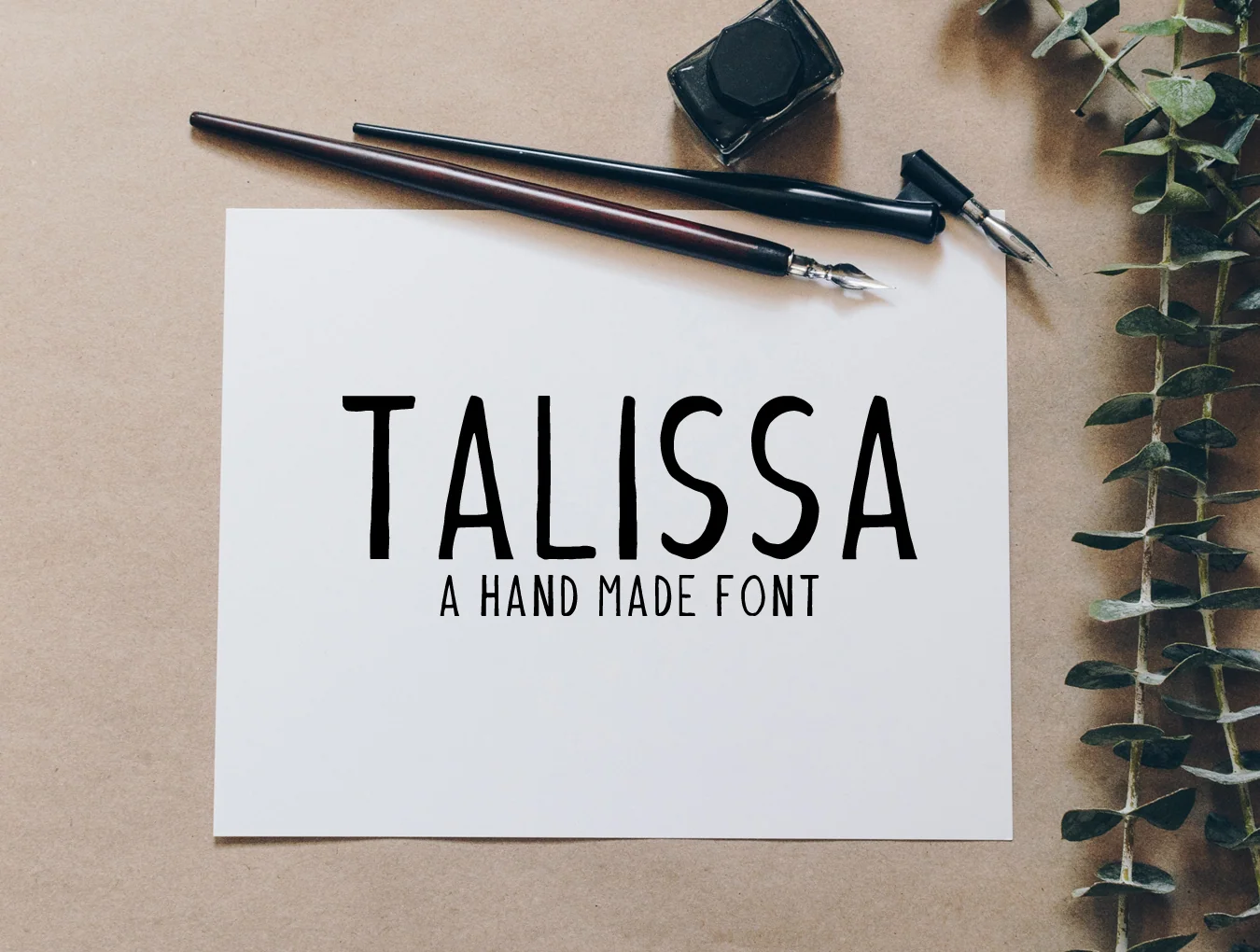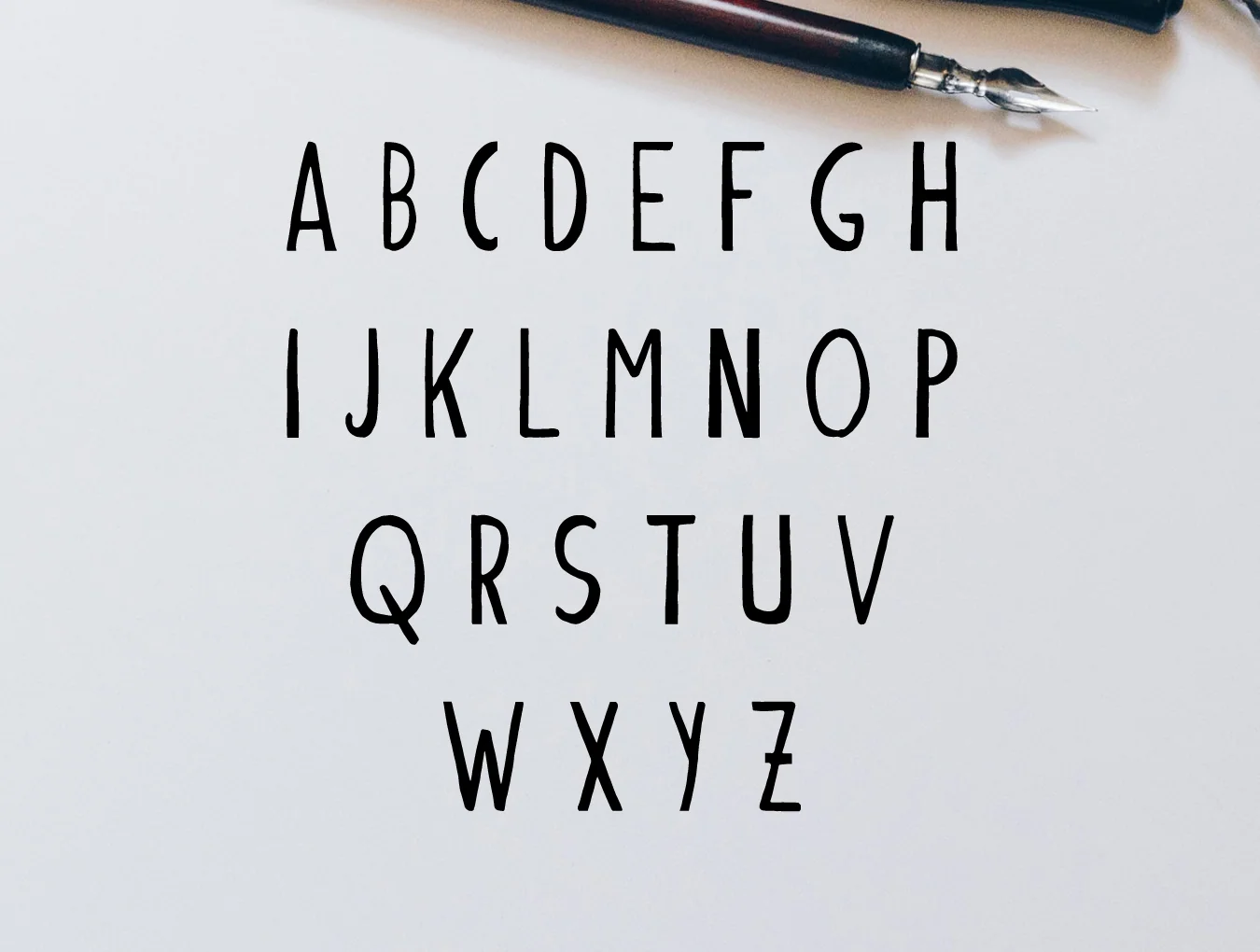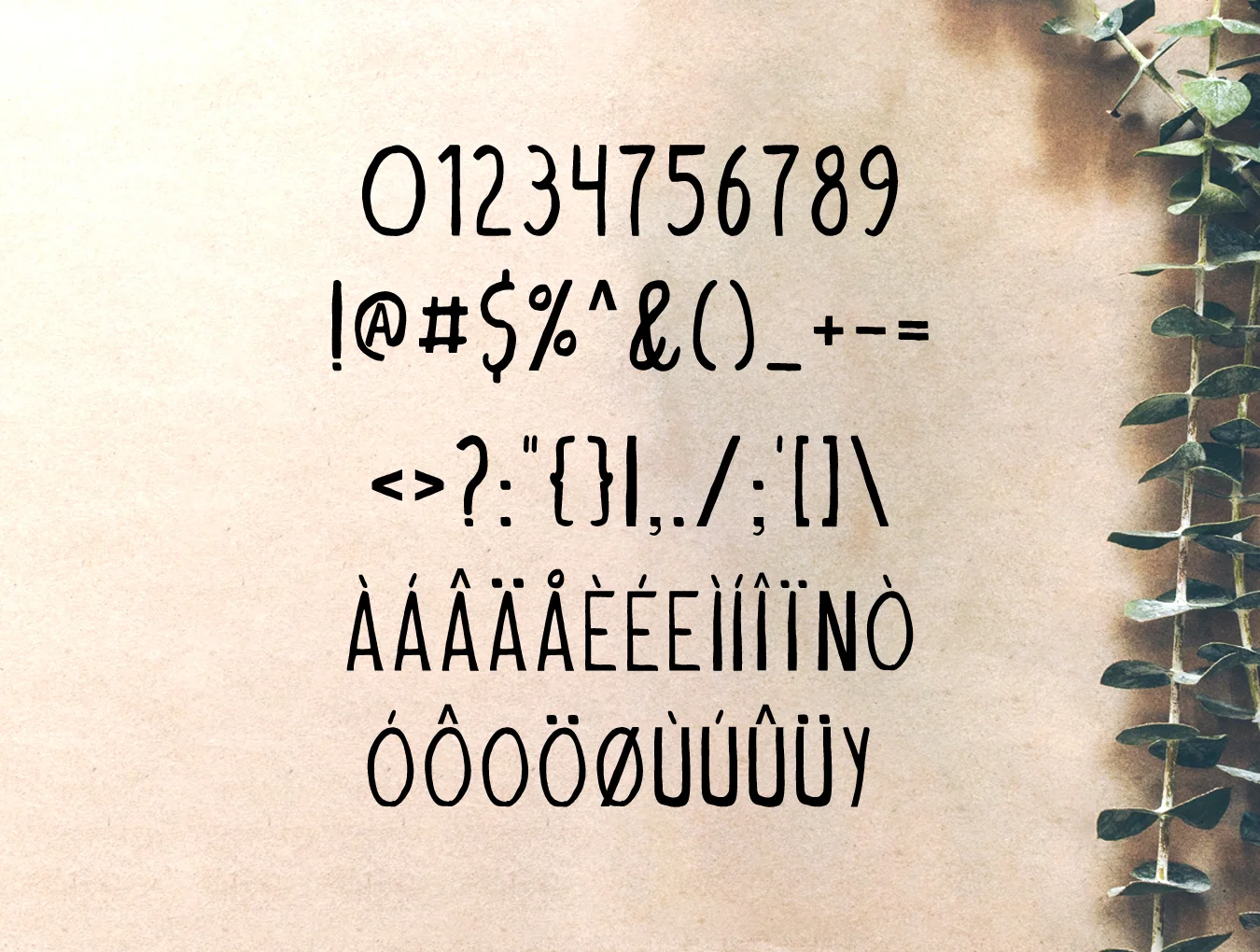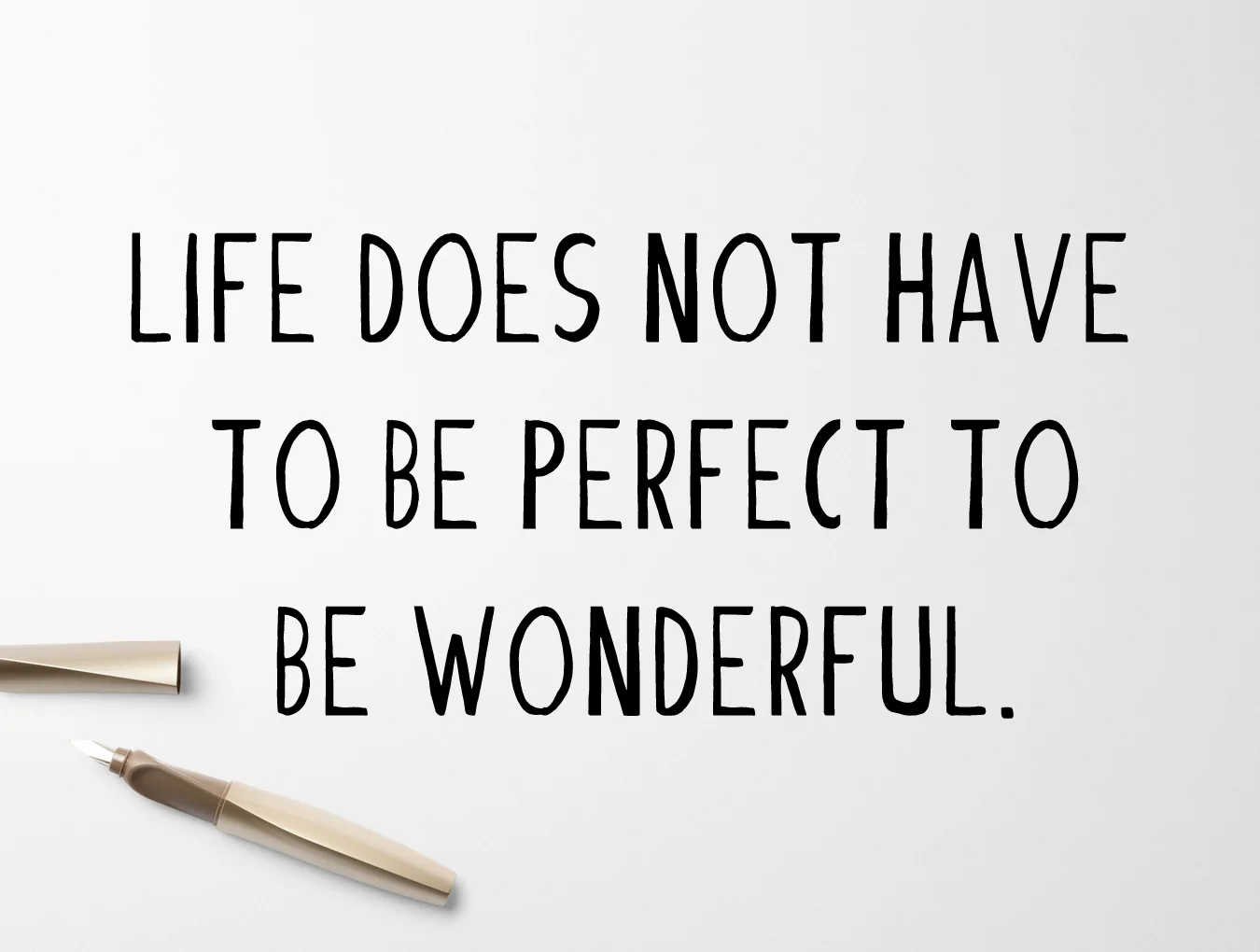
Talissa A Handmade Font
Talissa A Handcrafted Typeface
Handcrafted typeface
Includes 120 glyphs
Standard regular weight
Talissa A is a handcrafted typeface with distinctive detail and an artisanal feel. It suits branding, websites, headlines, banners, posters, apparel, logos, magazines, ads, templates, and printed pieces. Use all caps with generous spacing for an elegant style, or mix uppercase and lowercase for a timeless look.